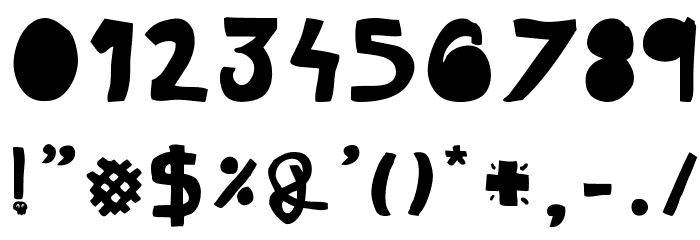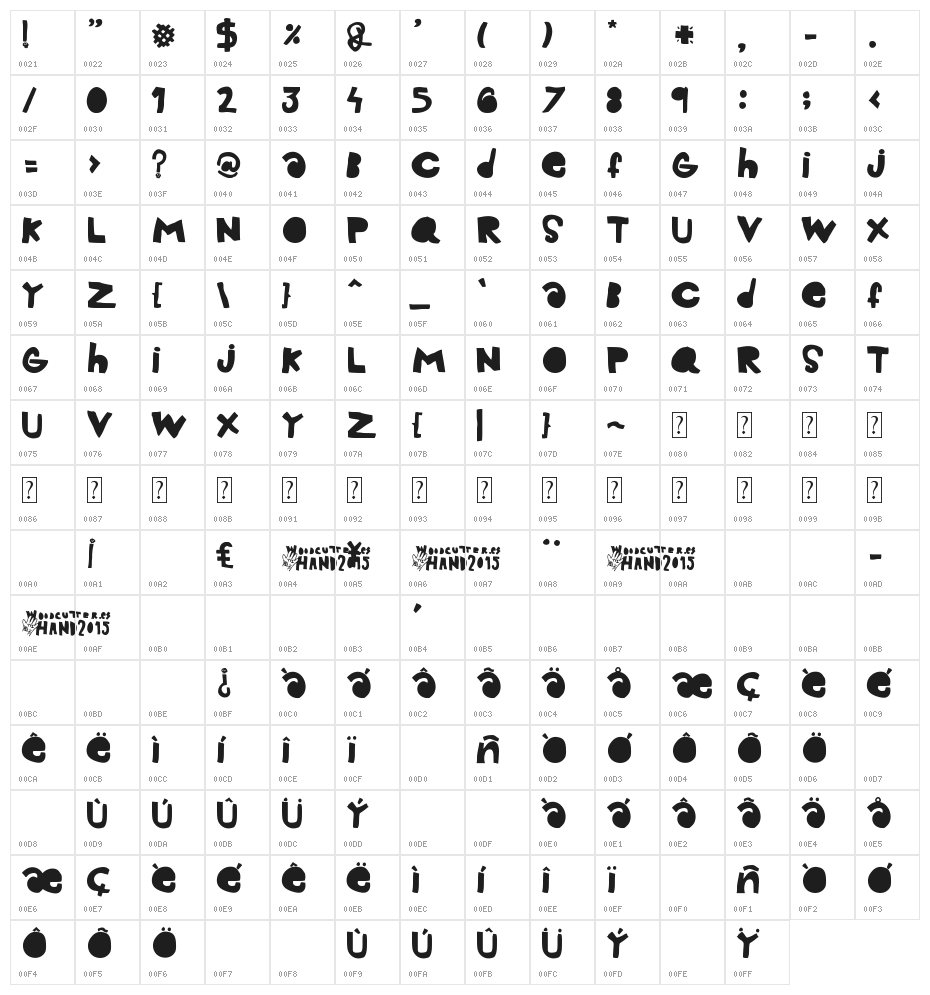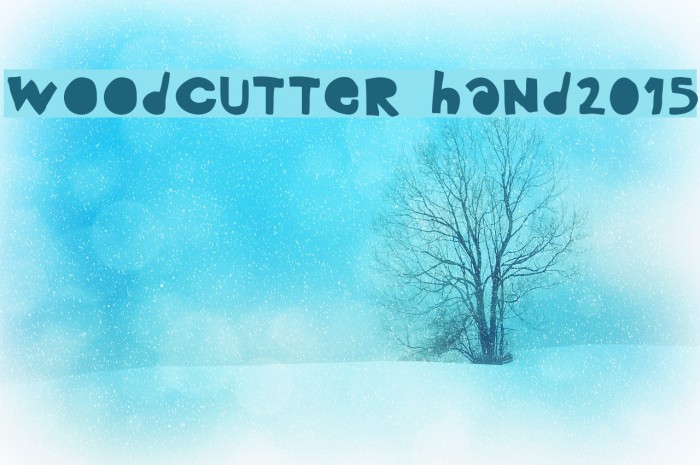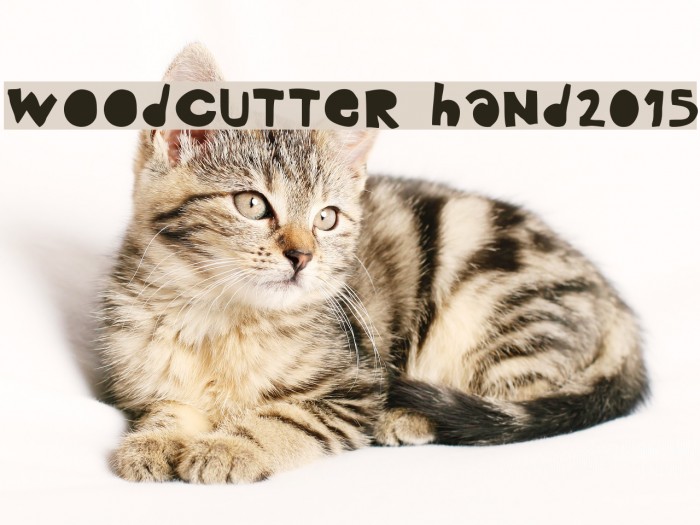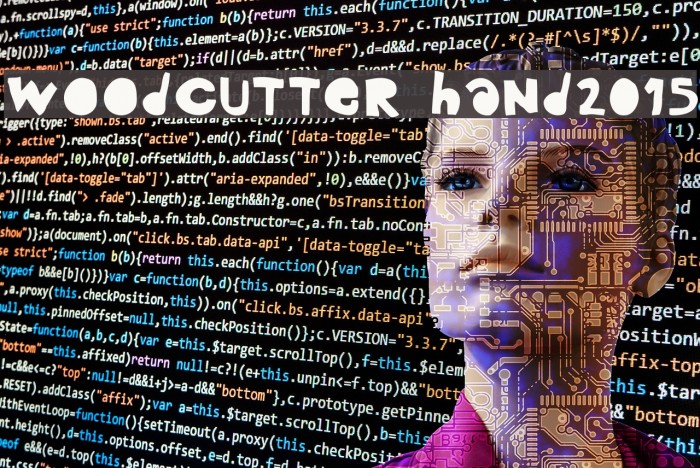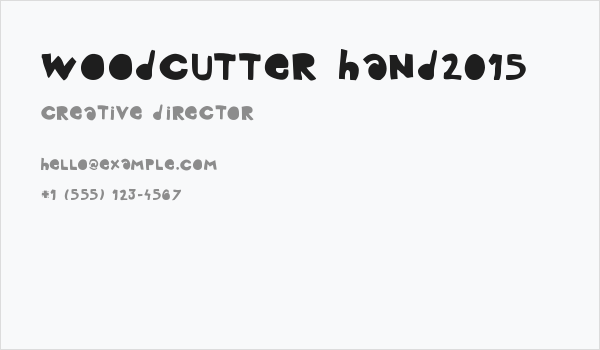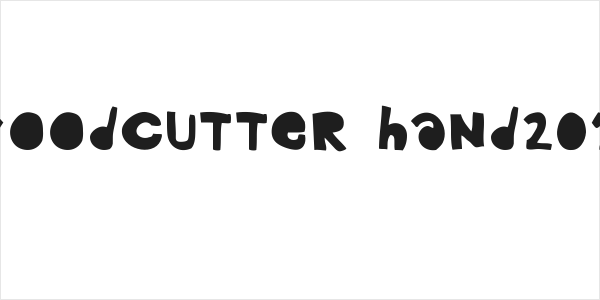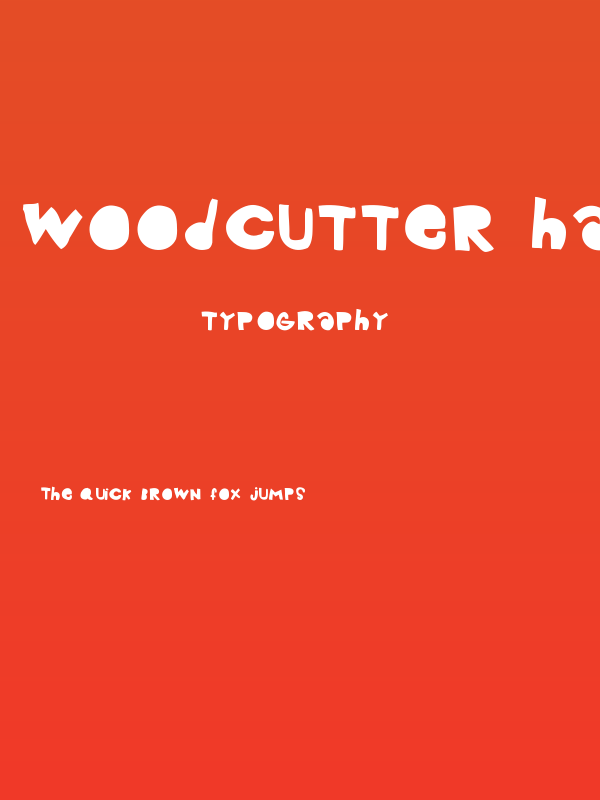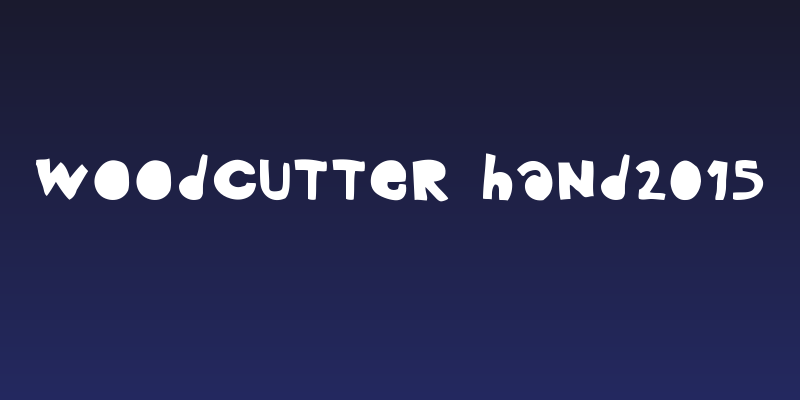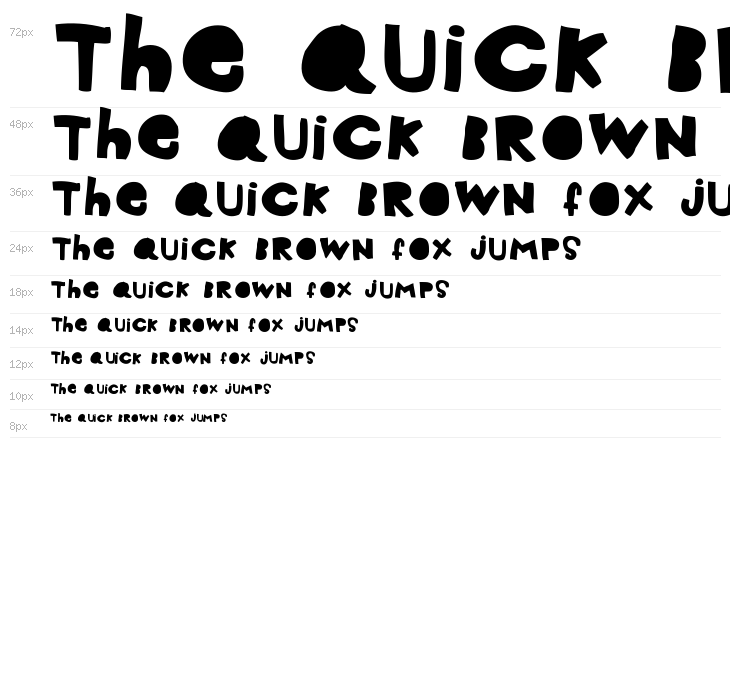
woodcutter hand2015 Font
woodcutter hand2015 Description
This playful and bold font features a hand-drawn style with irregular, organic shapes that give it a whimsical and informal appearance. The characters are thick and rounded, with varying stroke widths that add to its dynamic and lively feel. The font's unique design includes quirky details, such as uneven lines and exaggerated curves, making it stand out in any design project. Its boldness ensures high visibility, while the playful nature makes it suitable for creative and fun applications. The font includes a full set of uppercase and lowercase letters, numbers, and a variety of special characters, all maintaining the same lively and bold aesthetic.
| Overall Style | Playful, Whimsical, Hand-drawn |